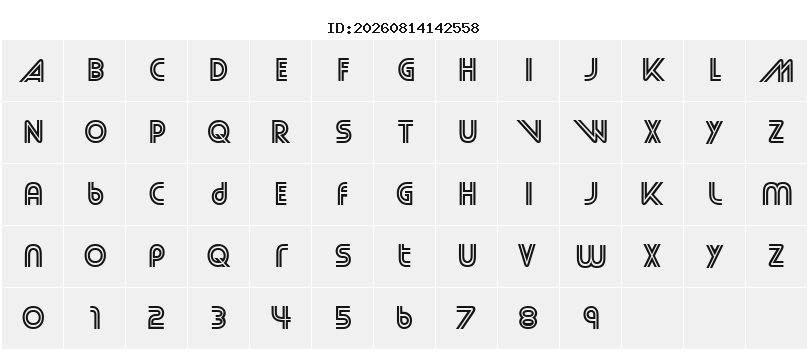
Street Cred Preview
• Font Name: Street Cred
• Full Font Name: Street Cred
About Street Cred.ttf
Street Cred.ttf is a modern, elegant sans-serif font designed for ultimate readability and visual harmony. Perfect for branding, headlines, web design, and print materials.